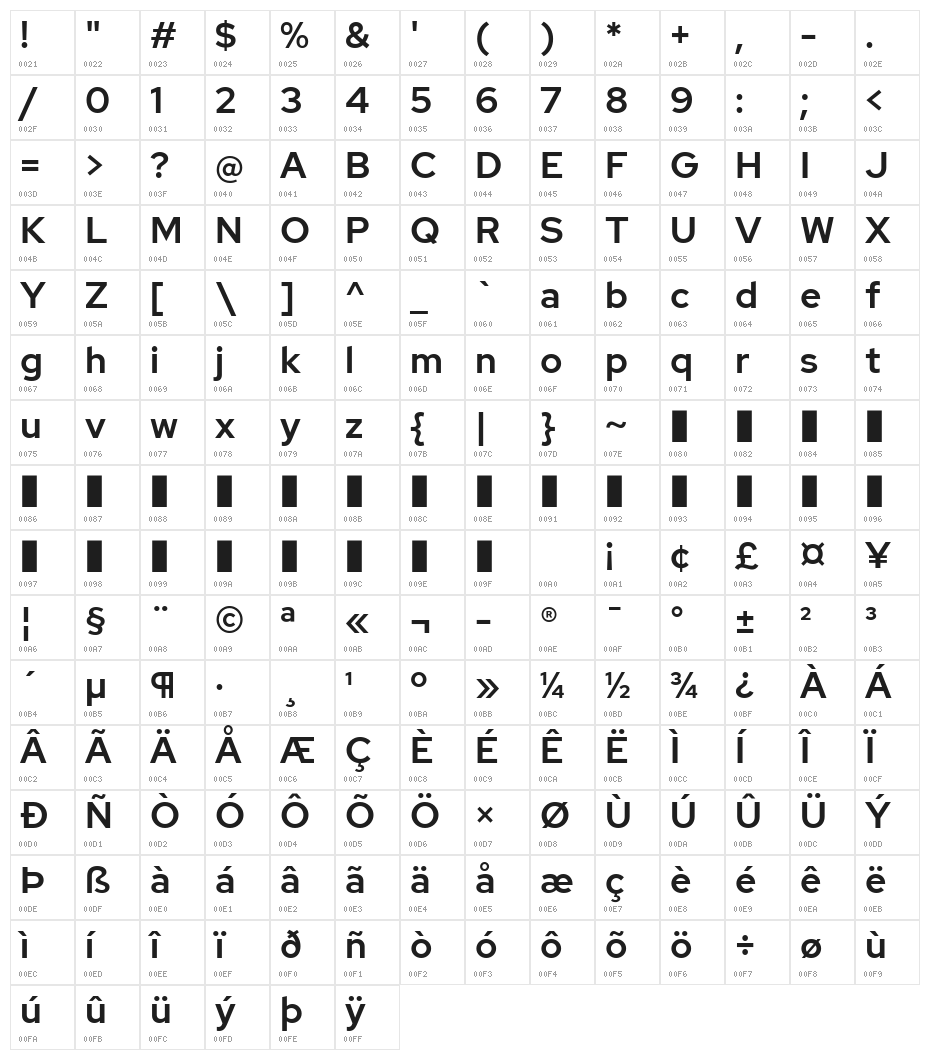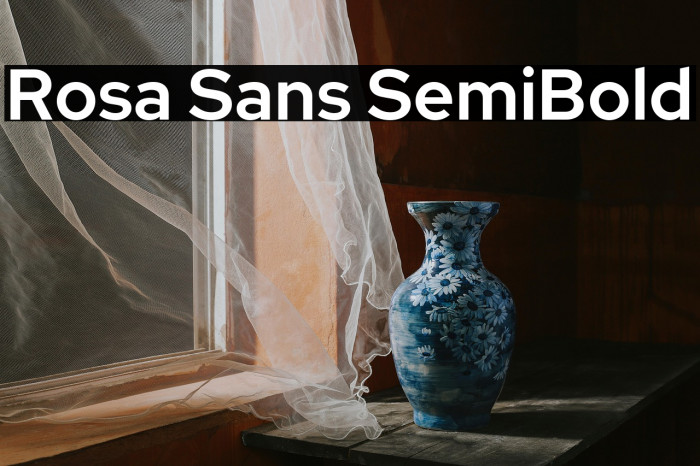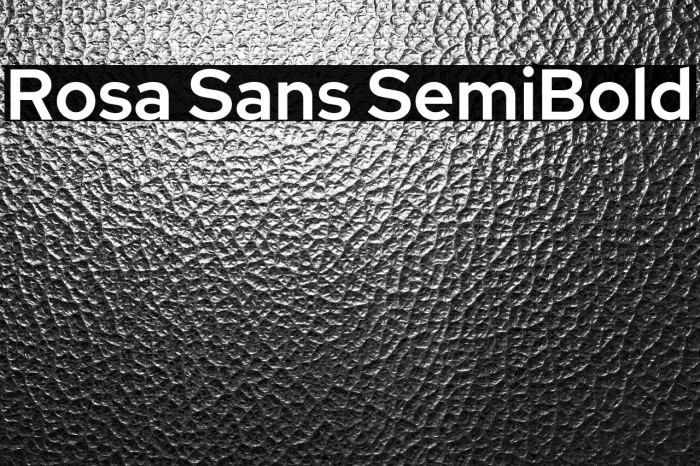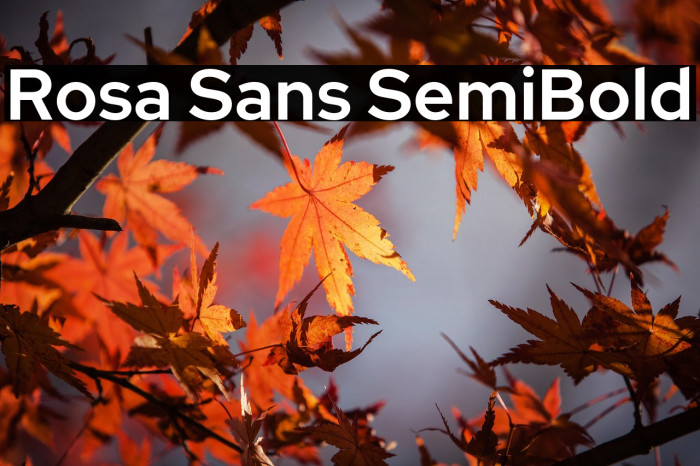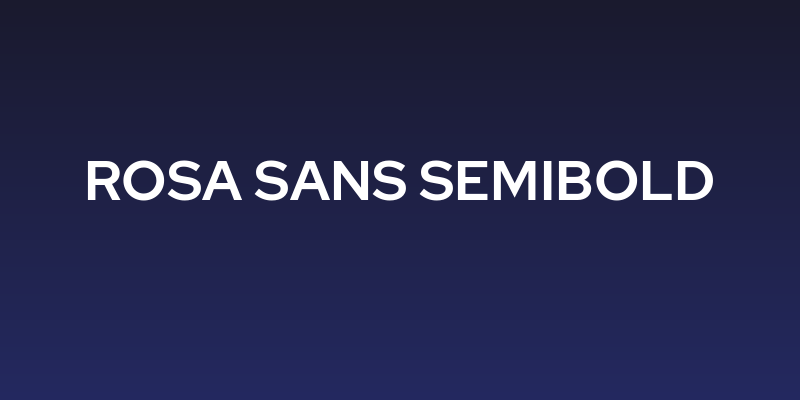
Rosa Sans SemiBold Font
Rosa Sans SemiBold Description
This font features a clean and modern sans-serif style with a semi-bold weight, offering a balanced and versatile appearance. The characters are well-proportioned with a consistent stroke width, contributing to its readability and professional look. Its geometric shapes and smooth curves make it suitable for a wide range of applications, from digital interfaces to print media. The font maintains a uniform character spacing that enhances its legibility, making it ideal for both headlines and body text. Its simplicity and clarity are complemented by a medium contrast in stroke thickness, providing a contemporary and polished aesthetic.
| Proposed Projects | Ideal for branding, web design, advertising, and editorial projects. |